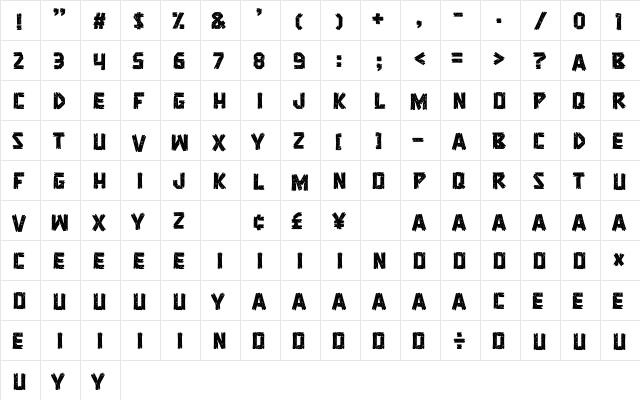
BEACHCLUB-Grunge Regular
Design Context for BEACHCLUB-Grunge Typeface
BEACHCLUB-Grunge embraces imperfection — its rough, textured character adds raw authenticity to designs that want to feel lived-in and unconventional.
A strong fit for alternative music projects, graffiti-adjacent design, and anything that deliberately resists polish.
Pro Tip: Use BEACHCLUB-Grunge at larger sizes where the texture and irregularity of each letterform can be clearly seen — it loses its character at small sizes.